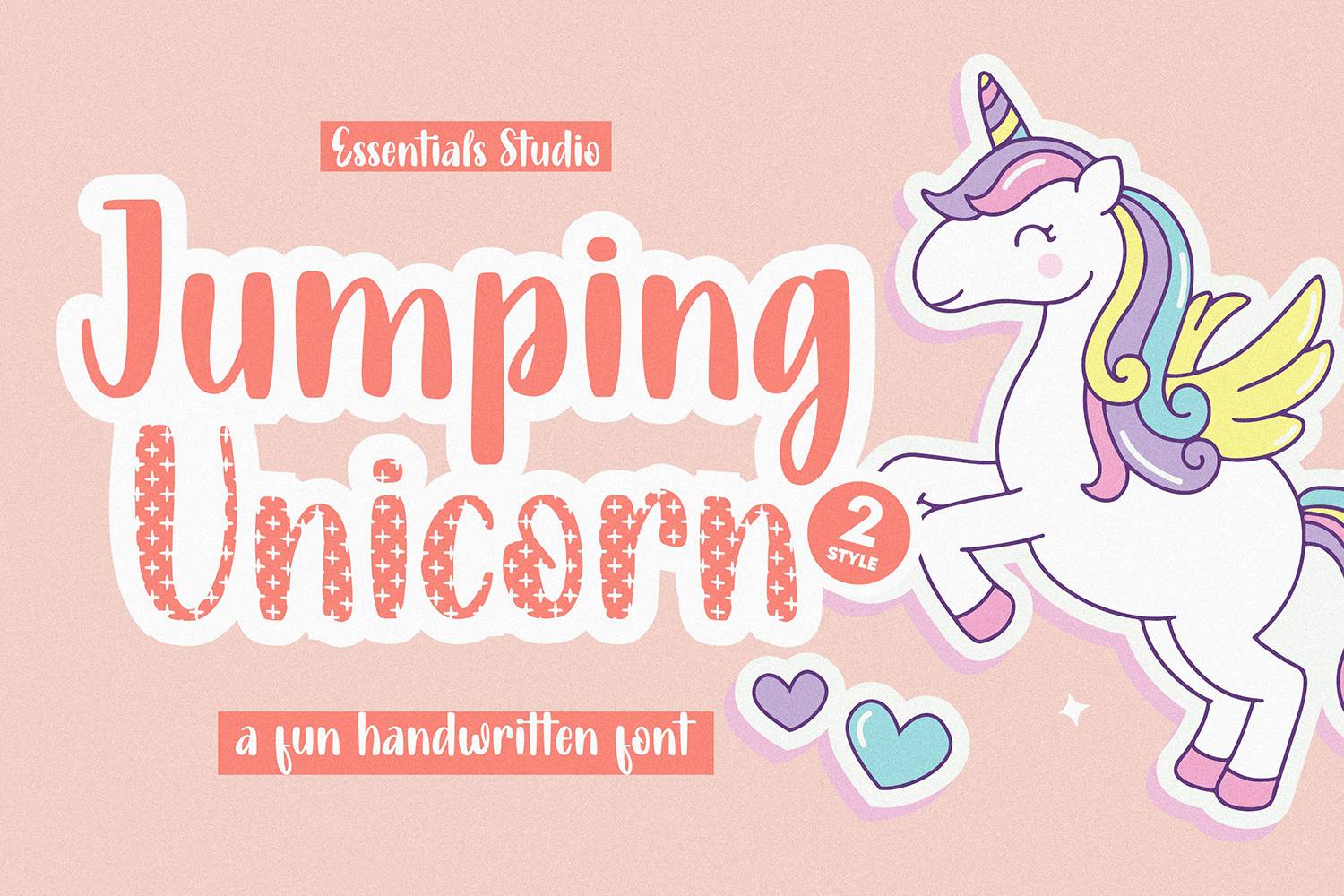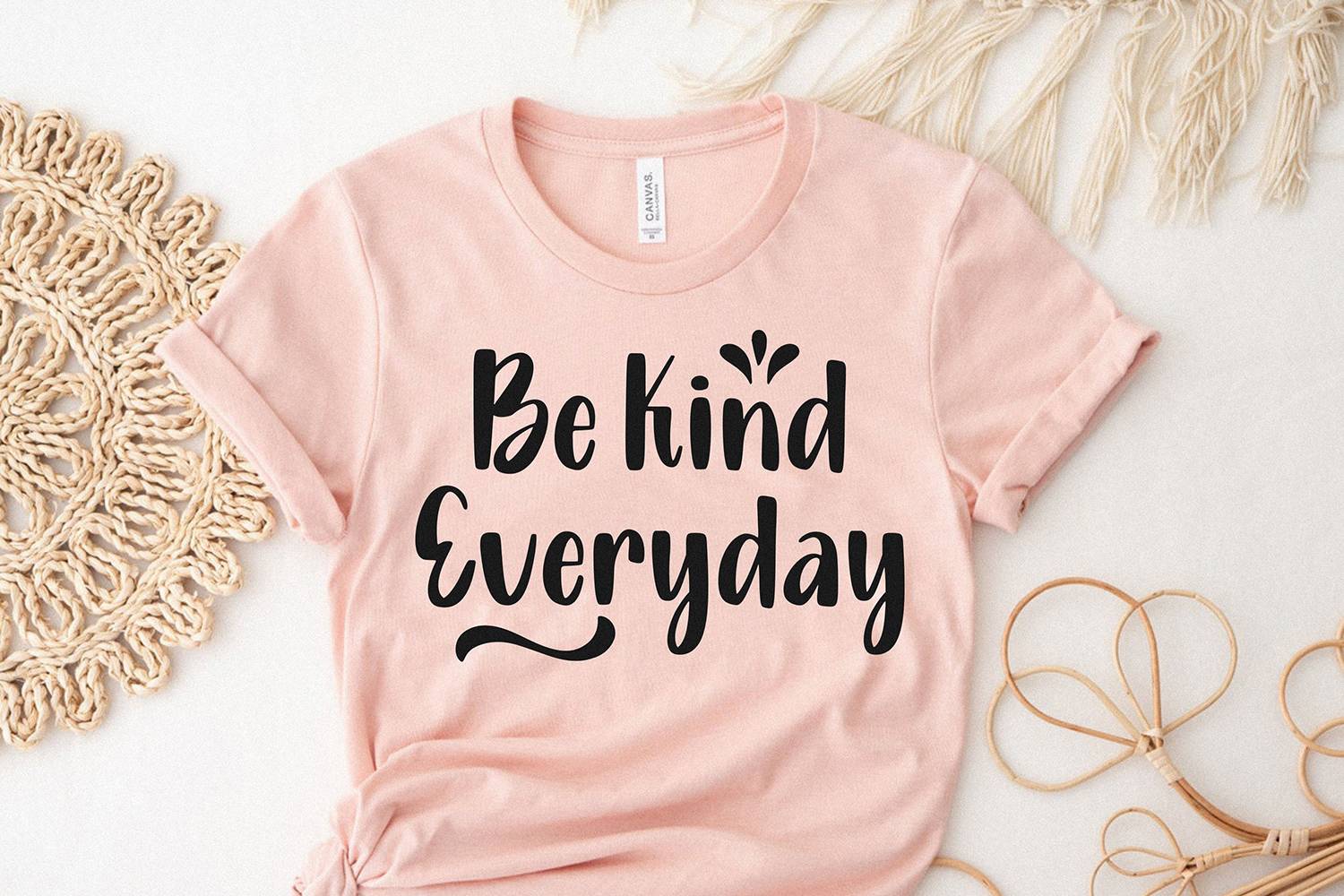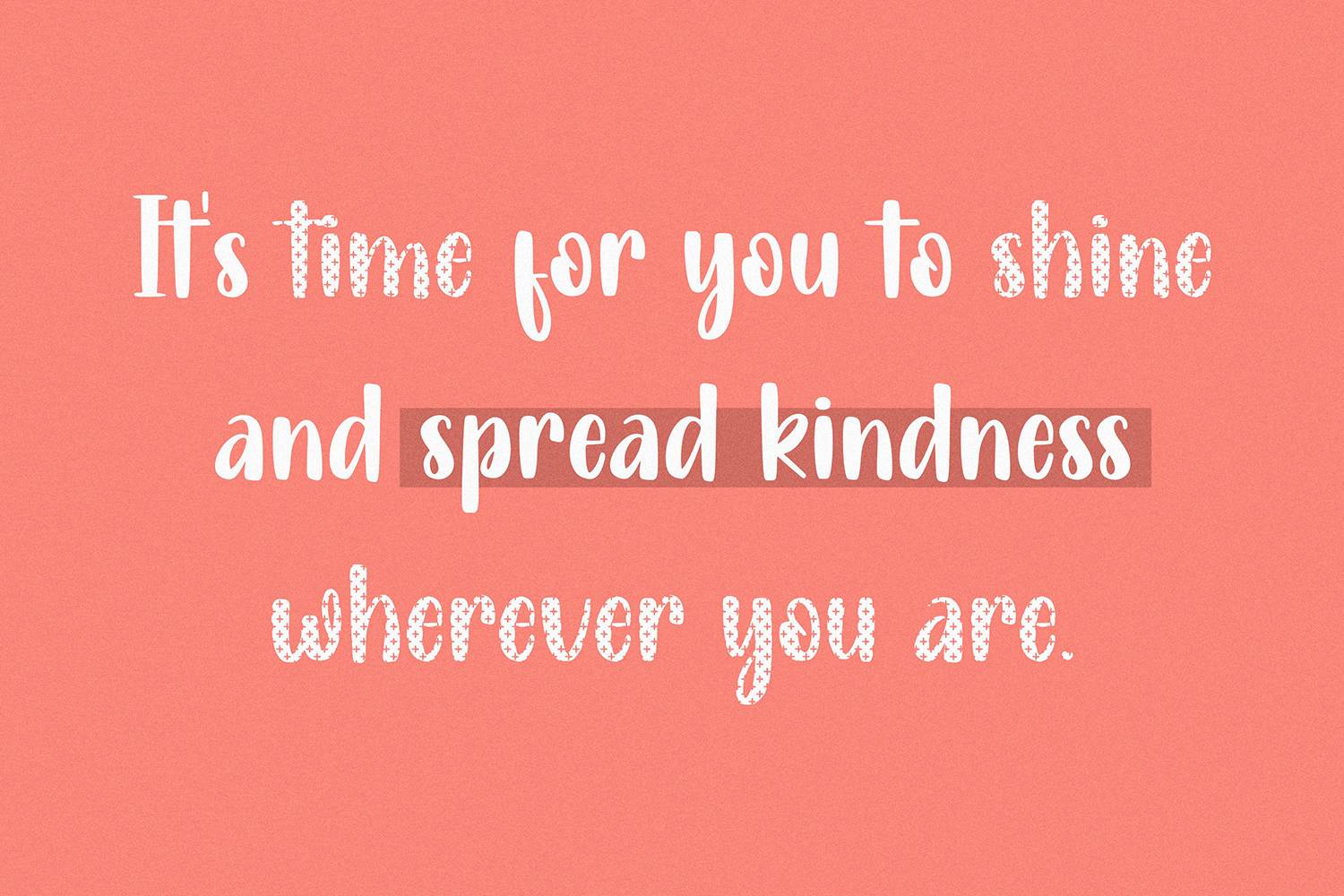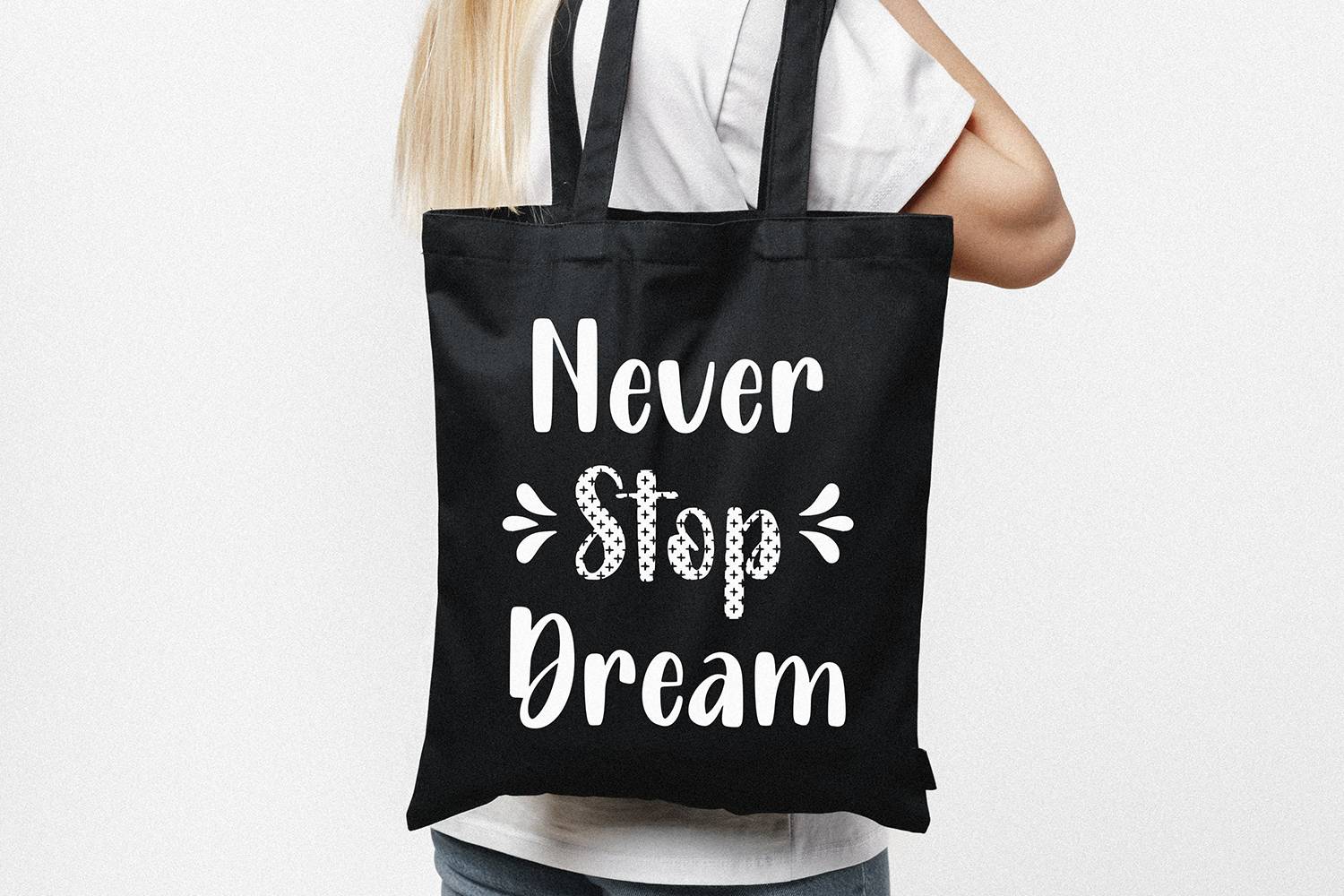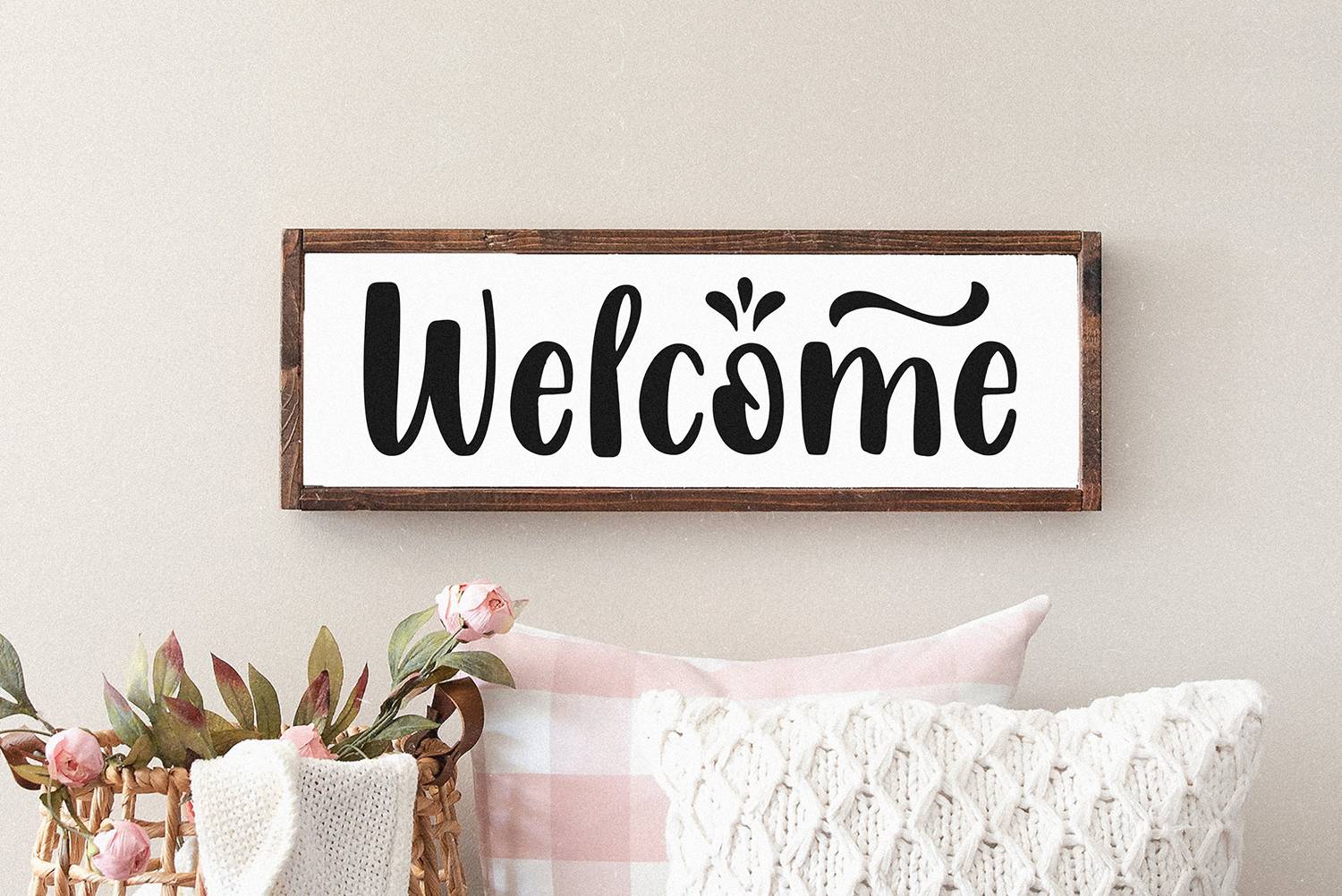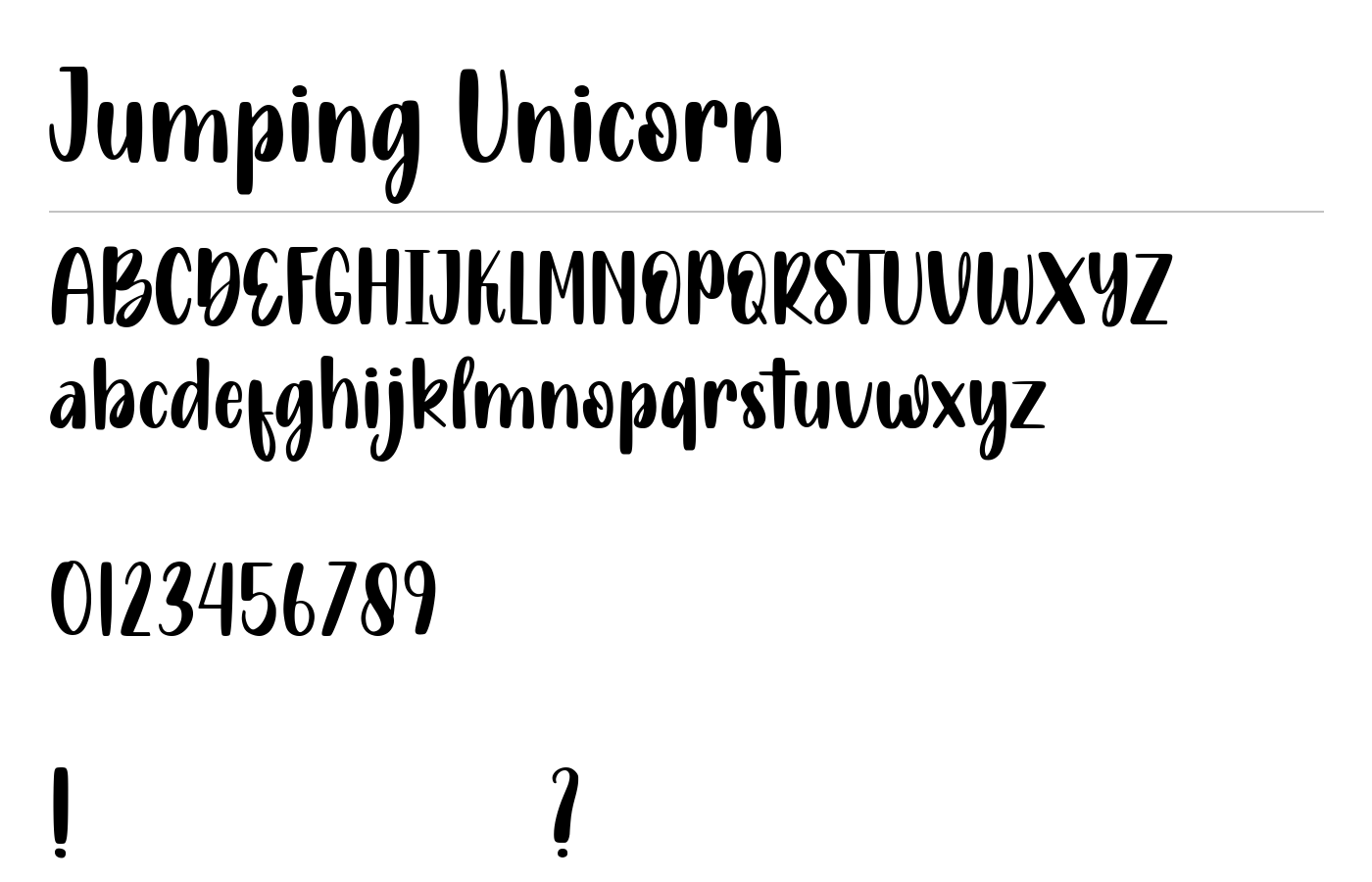
Jumping Unicorn is a playful, hand-drawn script font with a casual and friendly vibe. It features tall, narrow letterforms with consistent medium weight and smooth, rounded edges, making it approachable and easy to read. Ideal for creative projects, children’s branding, and fun headlines, this font brings a whimsical and lively tone to any design.
Jumping Unicorn Font
About Jumping Unicorn Font
| Font family | Jumping Unicorn Font |
| Designer | Annas Rifky Anhar |